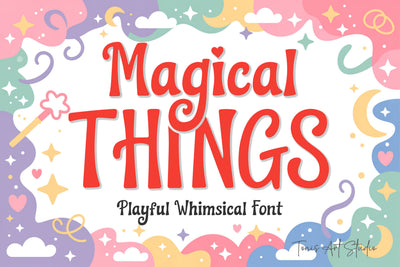
Magical Things Font – Playful Whimsical Kids Display Font
Magical Things Font is a playful, whimsical, and joyful display font designed to bring imagination, happiness, and charm into every project. With soft curves, friendly letterforms, and a dreamy fairytale feel, this font is perfect for kids’ designs, magical quotes, cute crafts, and creative branding. Its fun personality makes every word feel warm, cheerful, and full of wonder.
Perfect for kids’ birthday shirts, magical party invitations, nursery decor, classroom posters, Cricut and Silhouette crafts, sublimation projects, mugs, stickers, and playful home decor, Magical Things Font is designed to feel friendly, expressive, and full of personality. It’s ideal for children’s projects, inspirational quotes, personalized gifts, and joyful everyday designs.